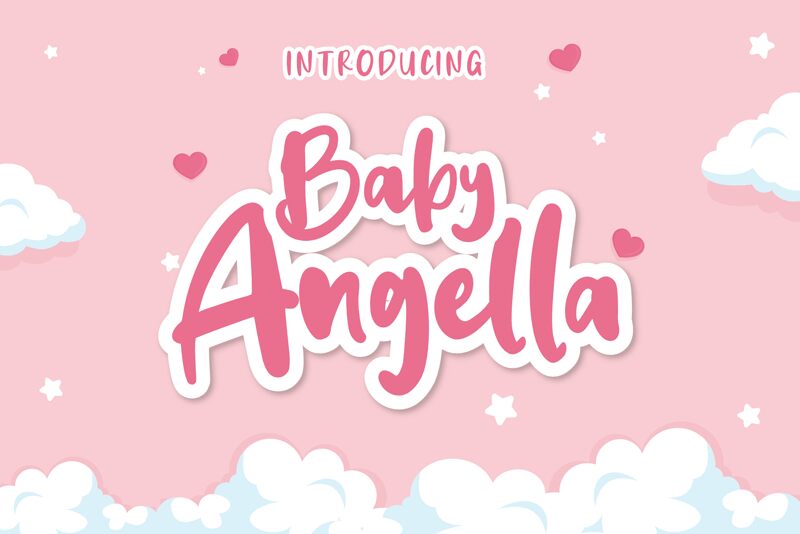
Baby Angella Regular
Baby Angella, designed by Viola Type, is a charming and bold font that captivates with its cute handwritten style. Its playful yet confident strokes make it ideal for a variety of projects.
Use it to create eye-catching titles and headings for children's books, nursery decorations, or baby shower invitations. Its bold weight adds emphasis without overwhelming the overall design. Baby Angella brings a touch of whimsy to branding materials for toy stores or clothing lines targeting young audiences.
With its delightful character, this font will surely add a sprinkle of joy to any project it graces.